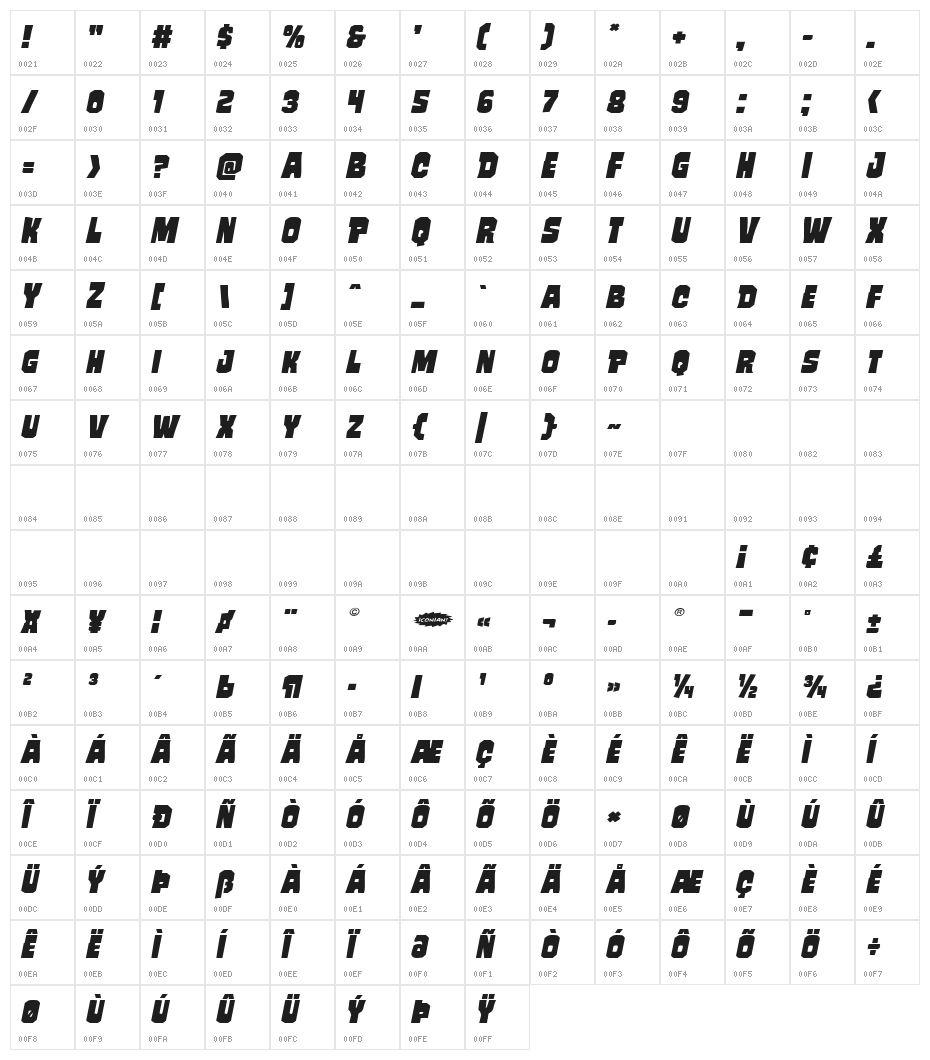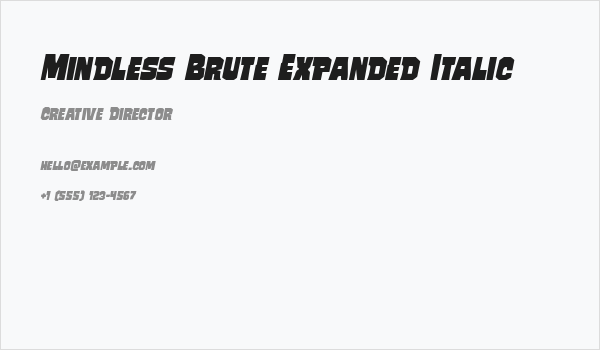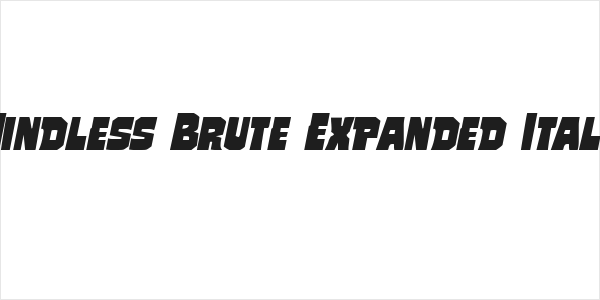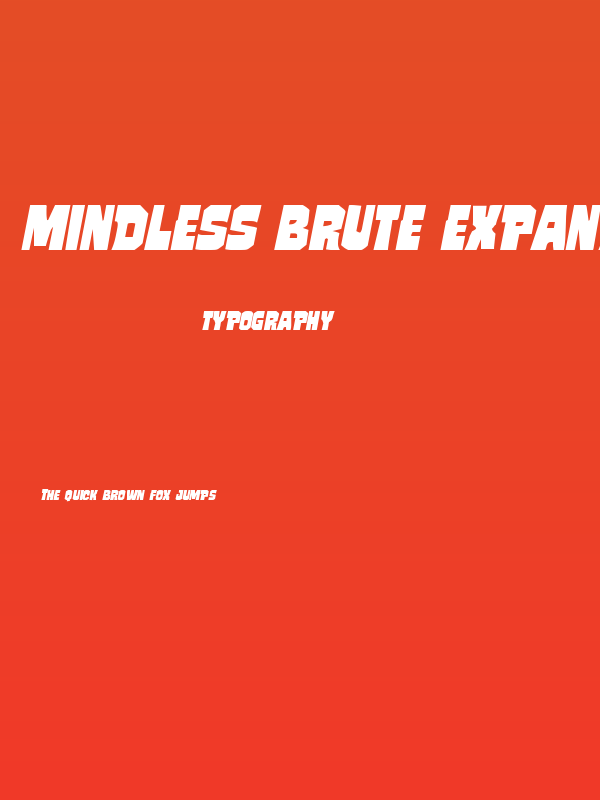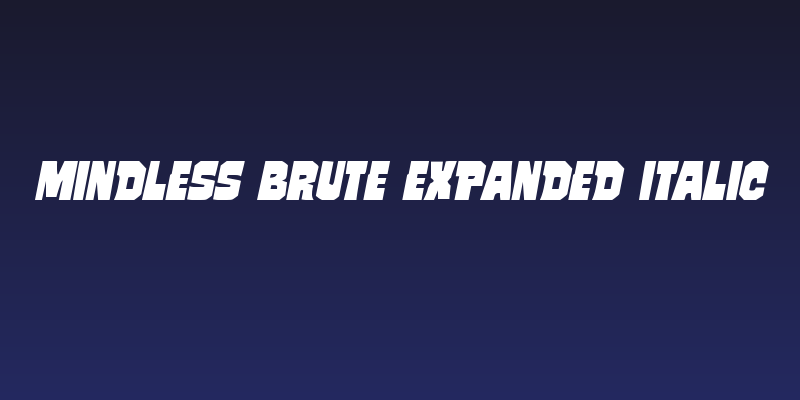
Mindless Brute Expanded Italic Font
Mindless Brute Expanded Italic Description
This font features bold, angular characters with a distinct slant, giving it a dynamic and aggressive appearance. The strokes are thick and consistent, providing a strong visual impact. Each letter is designed with sharp edges and a slightly expanded width, enhancing its boldness. The italic style adds a sense of motion and urgency, making it suitable for attention-grabbing headlines or titles. The numbers and special characters maintain the same bold and angular style, ensuring consistency across all elements.
| Proposed Projects | Ideal for sports branding, action movie posters, video game titles, or any project requiring a bold and energetic typeface. |